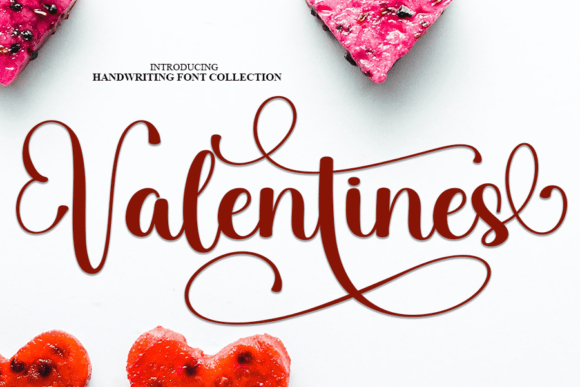
What Is Valentines Font?
Valentines is a delicate handwritten font designed with care and precision. Each letter carries a soft, graceful feel that makes this font stand out in any project. If you’re looking for a unique handwritten style to bring your ideas to life, Valentines is the perfect choice.
This font is incredibly versatile. Use Valentines to create stunning wedding invitations that feel personal and elegant. It works beautifully for handwritten letters, love notes, and greeting cards that need a heartfelt touch.
For product packaging, such as food labels or handmade goods, Valentines adds a sophisticated, artisanal vibe. Titles, headers, and quotes also gain warmth and personality when set in this font.
From social media graphics to brand materials, Valentines adapts easily to a variety of creative projects.
Why Choose Valentines Font?
Valentines was crafted with attention to detail. The varied baselines and flowing strokes give your text an organic, natural look that feels authentic and stylish.
Valentines elevates any design by adding a refined, handcrafted quality. Even simple layouts come alive with its delicate lines and elegant character. The font is perfect for conveying emotion, warmth, and a personal touch in any context.
Its versatility means you can use it for both formal and playful projects, making it an essential addition to your font library.
Valentines is more than a font—it’s a way to infuse your designs with beauty and authenticity. Whether you’re crafting wedding invitations, product labels, personal letters, or creative branding, this font brings elegance and distinction to every project.